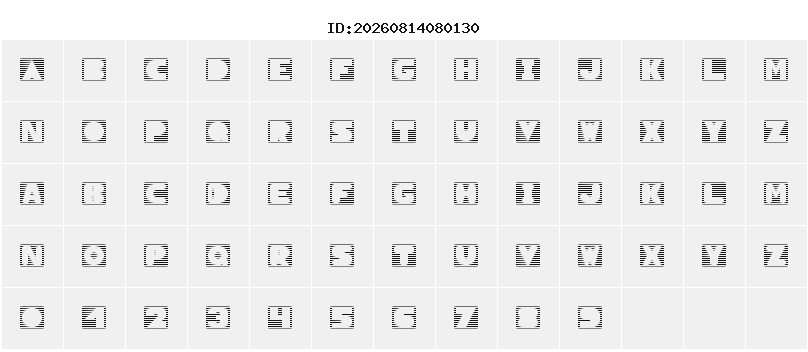
• Font Name: Sun Blinds
• Designer: Noronha
• Description: “Sun Blinds” was built with FontStruct Designer description: A typografy made with blinds effect, upper caps are plained and lower caps rounded.